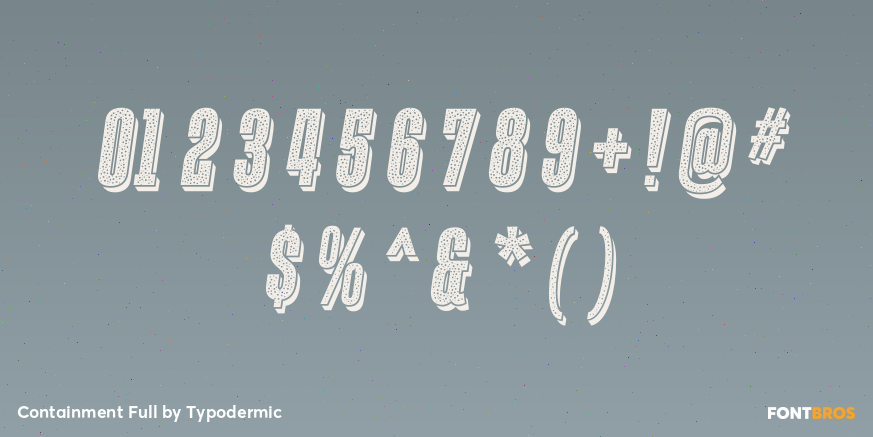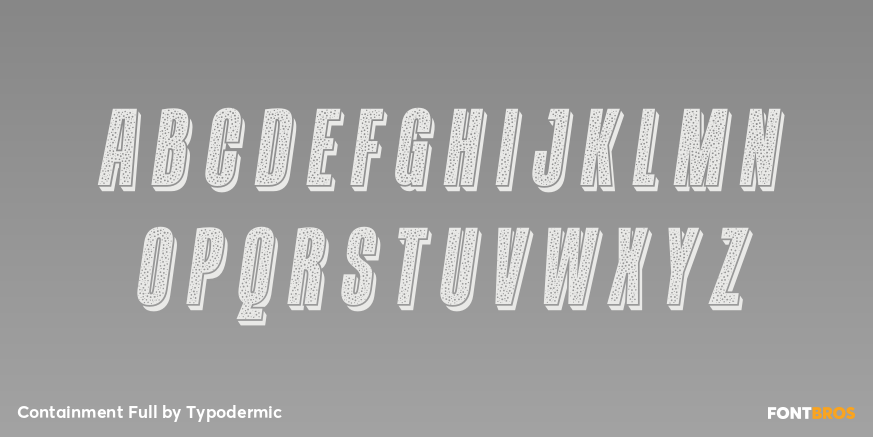
Containment Full
Buy NowContainment Full combines the family’s Solid, Shade, and Sparkle layers into one ready-made display face. Tall condensed letters carry a crisp dimensional edge and a scatter of coarse particles, so a headline can look dusted with gravel, snow, sprayed coating, or celebratory debris without assembling the components separately.
Use Full for rally and motocross titles, gravel-race graphics, winter-sports campaigns, rugged coating launches, tire promotions, and championship merchandise when the complete effect needs to work in a single color or quick production file. For animated, multicolor, or material-specific treatments, build the same lettering from the separate Containment layers.